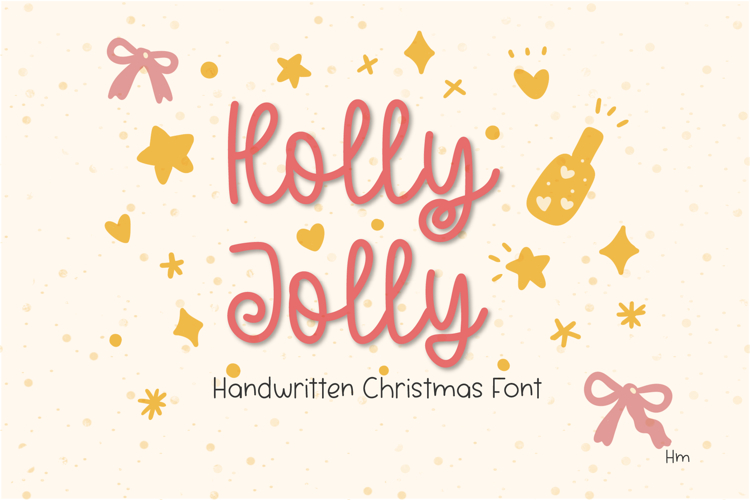
Holly Jolly | Handwritten Christmas Font | Cute Script for Holiday Crafts
Holly Jolly is a sweet and joyful handwritten Christmas font that captures the warm, festive spirit of the holidays. Its playful curves and smooth flow make it perfect for cozy designs, gift tags, greeting cards, shirts, mugs, and winter DIY projects.
Add a cheerful touch to your holiday creations with this cute and friendly script